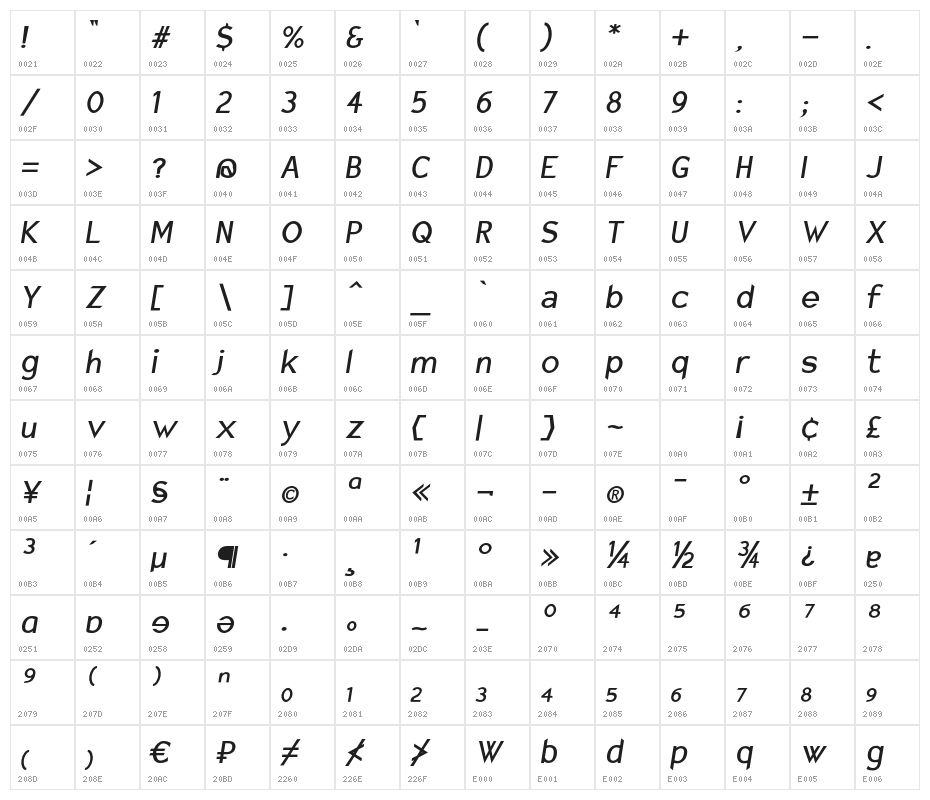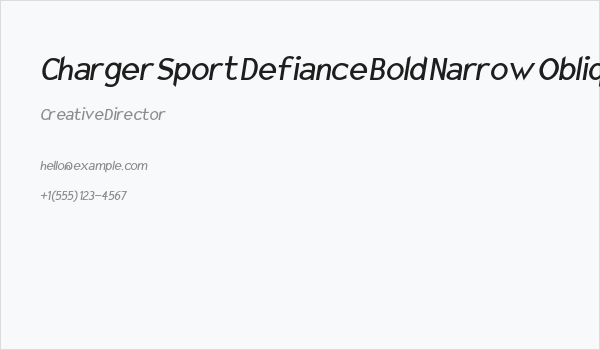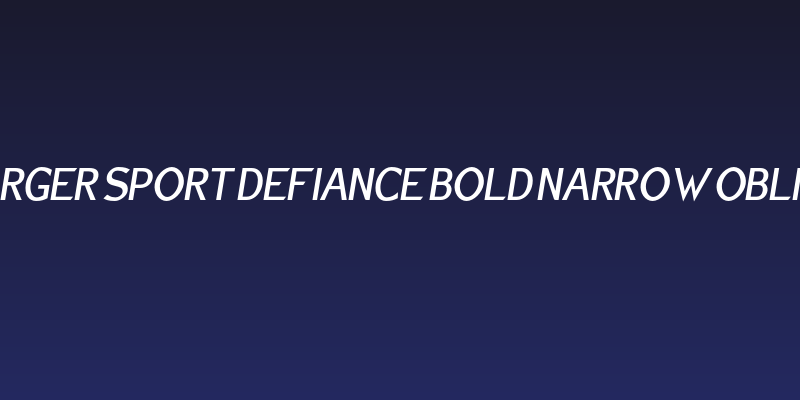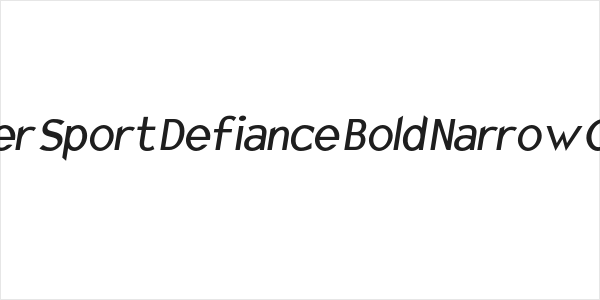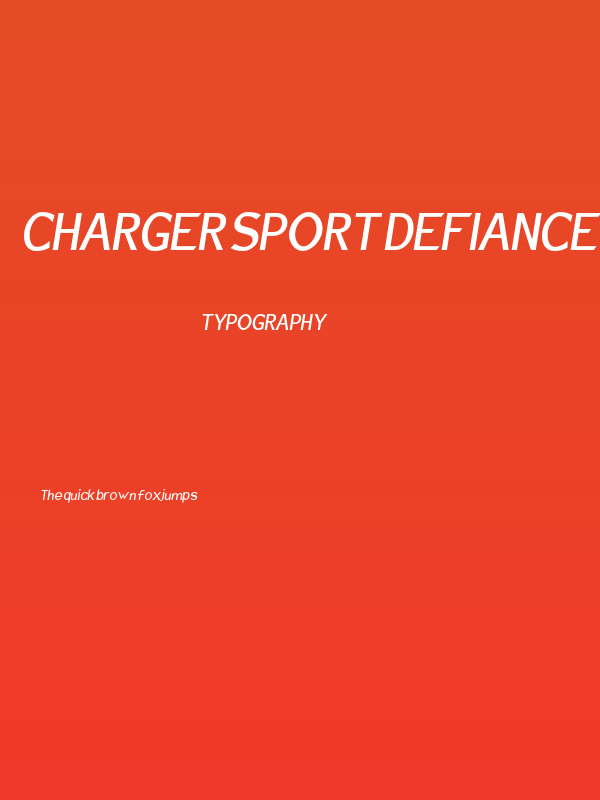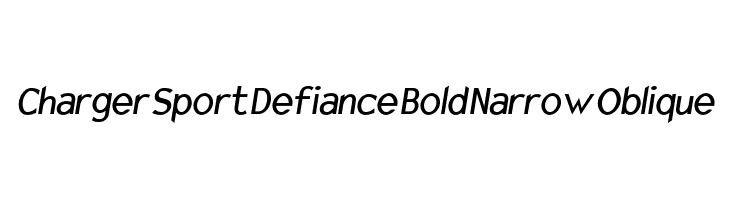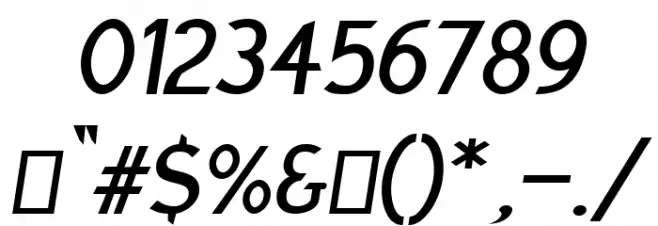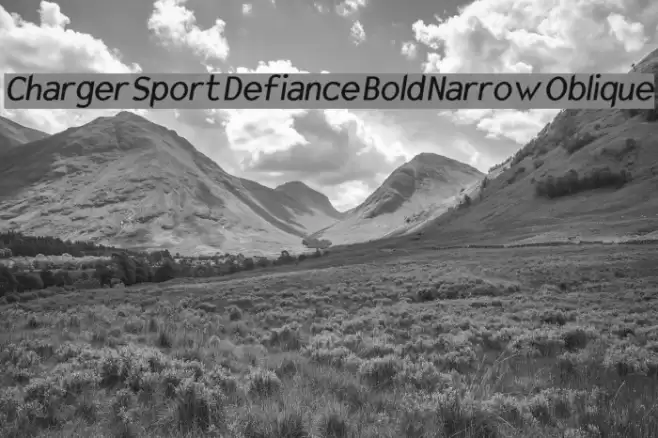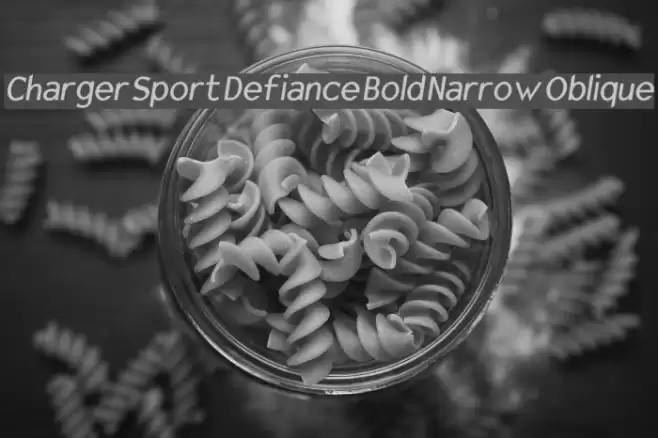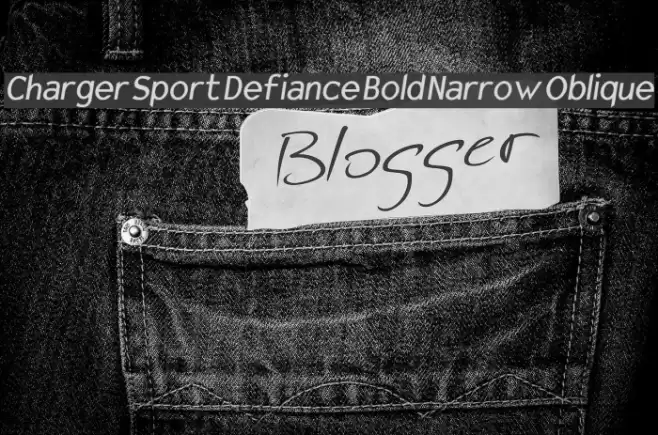
Charger Sport Defiance Bold Narrow Oblique Font
Charger Sport Defiance Bold Narrow Oblique Description
This font exhibits a bold and narrow design with a distinct oblique slant, giving it a dynamic and sporty appearance. The characters are tightly spaced, enhancing its compact and streamlined look. The uppercase and lowercase letters maintain a consistent style, with smooth curves and sharp edges that contribute to its modern aesthetic. The numerals are clear and legible, matching the overall boldness of the font. Special characters are well-integrated, maintaining the font's cohesive style. This typeface is ideal for projects that require a strong and energetic visual impact.
| Proposed Projects | Ideal for sports branding, dynamic posters, and modern advertising campaigns. |